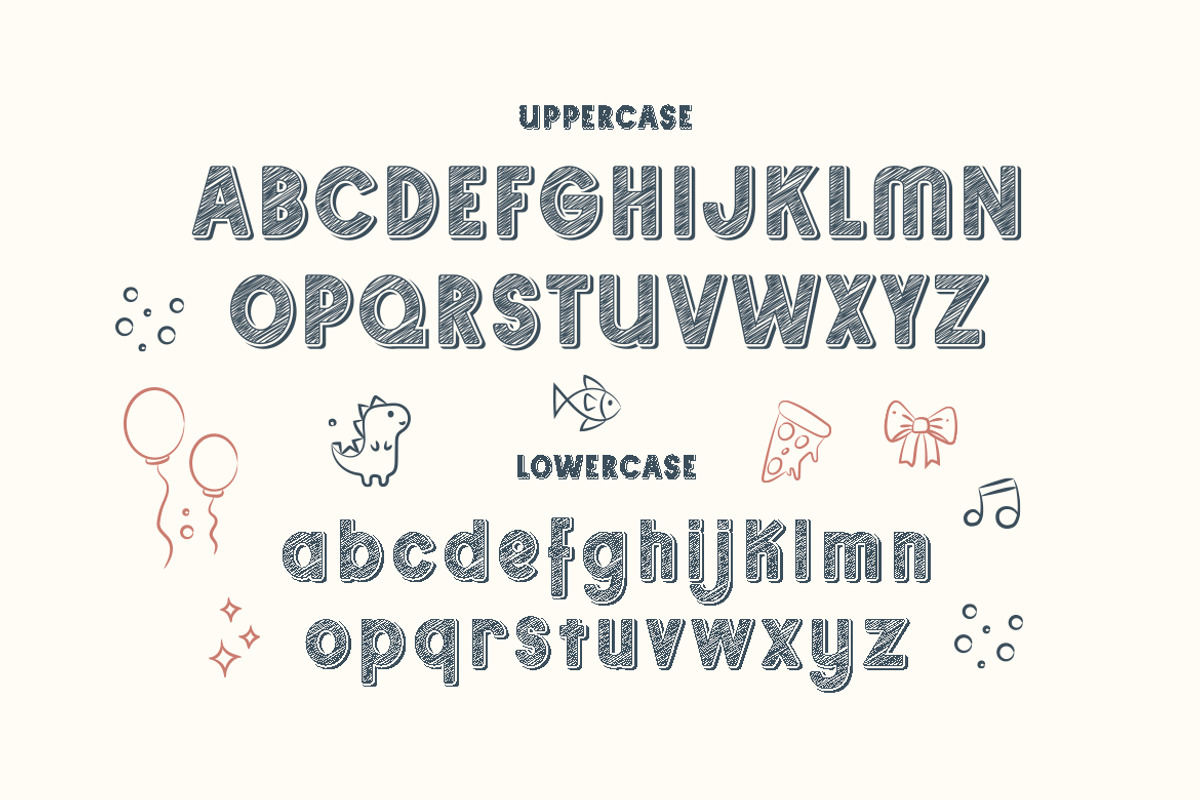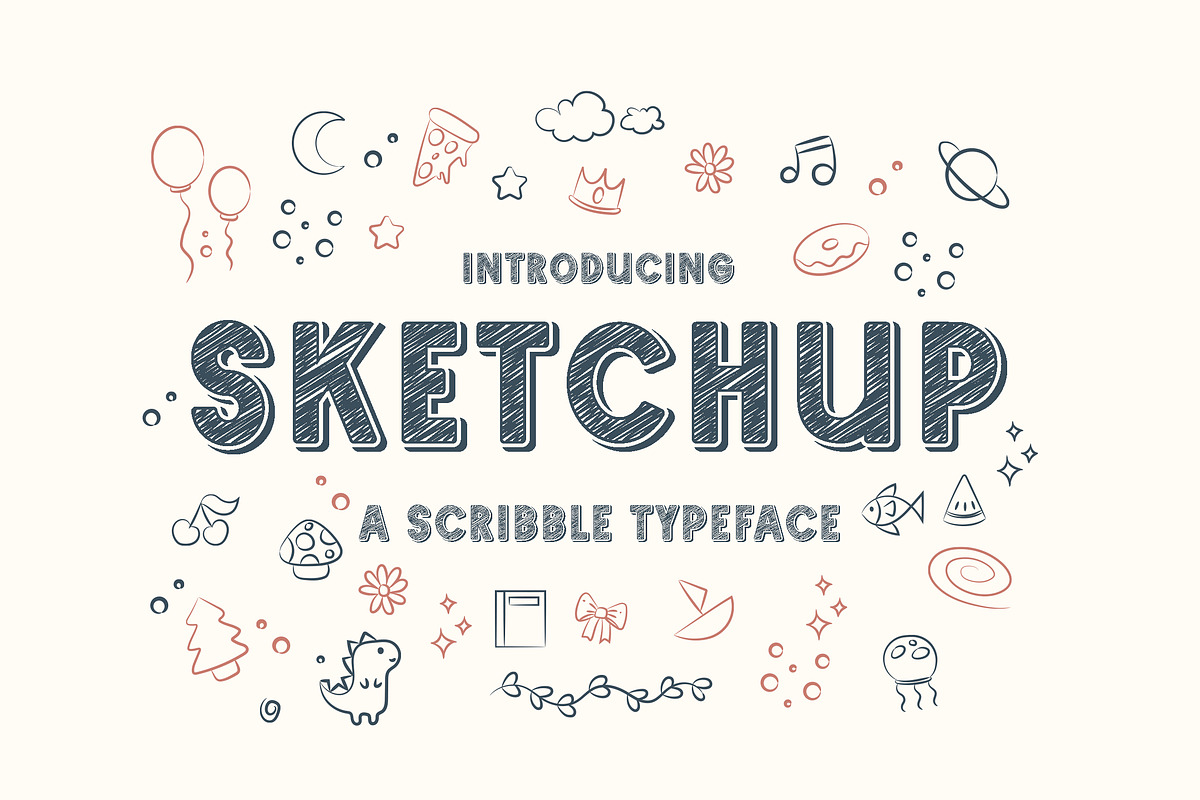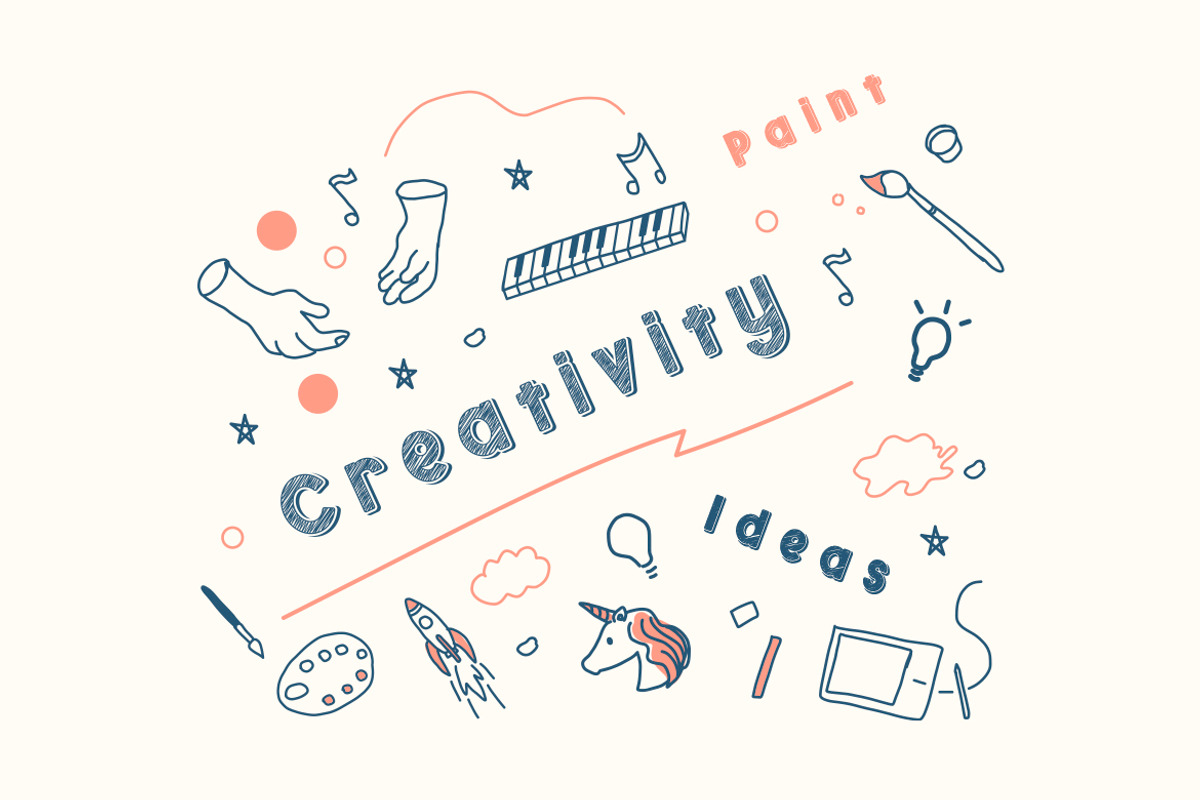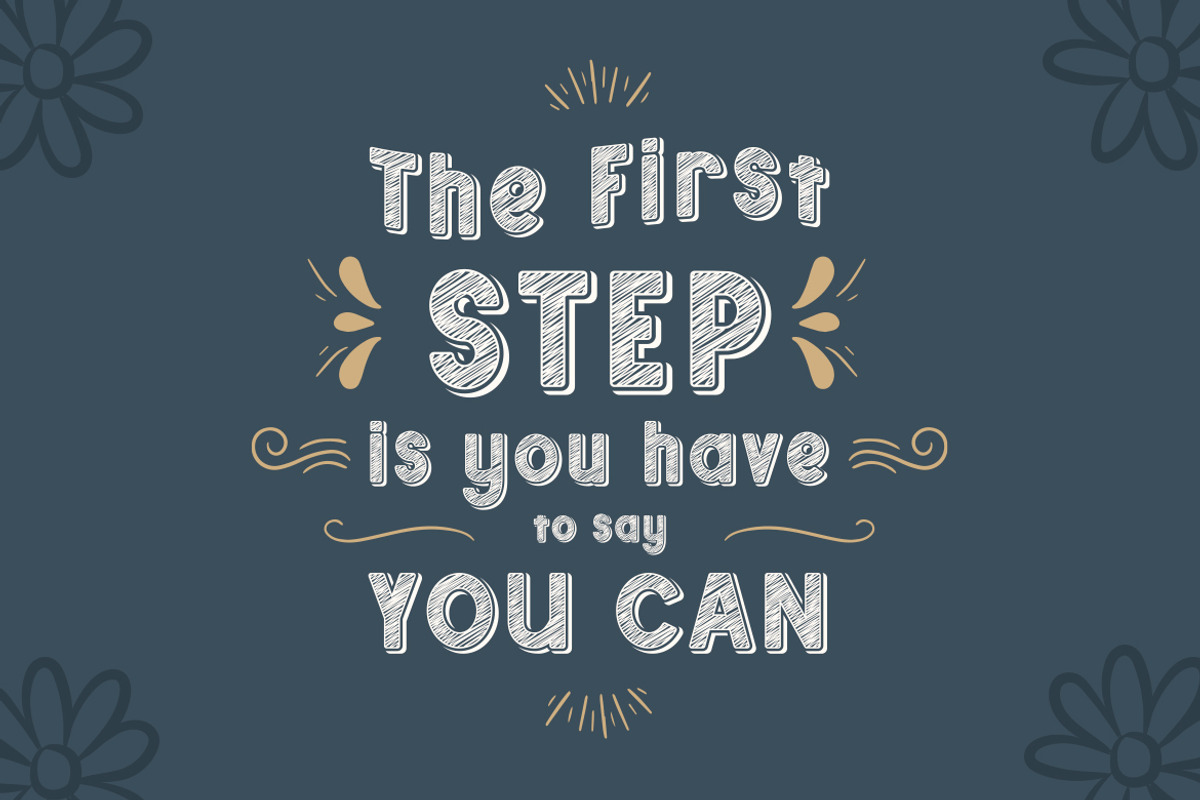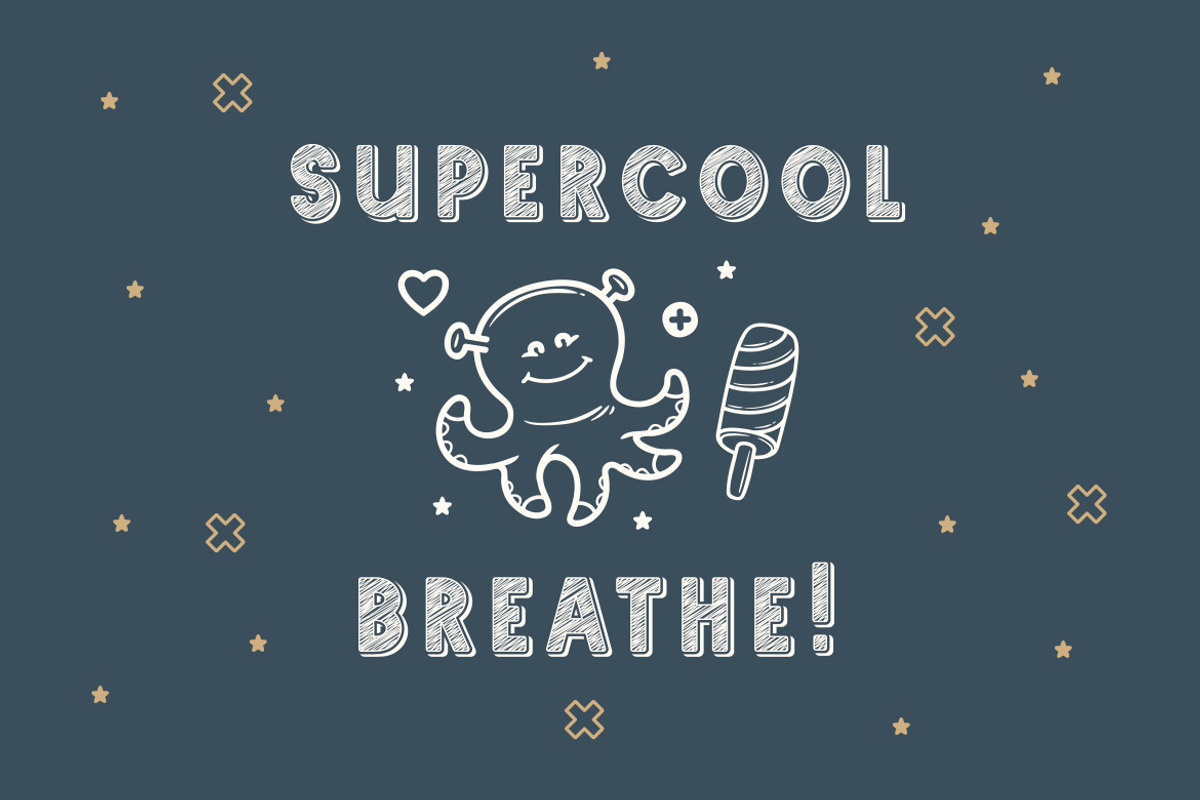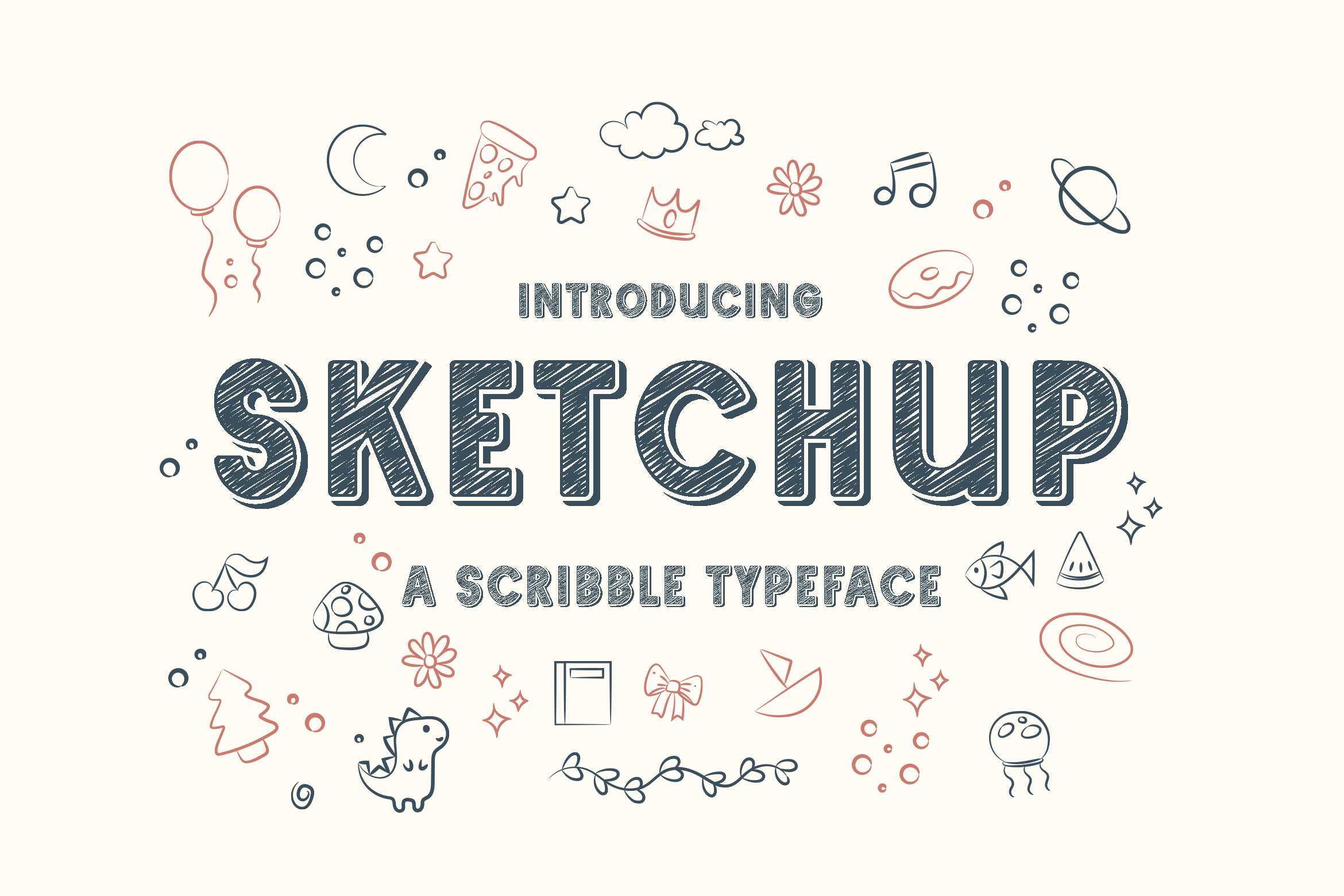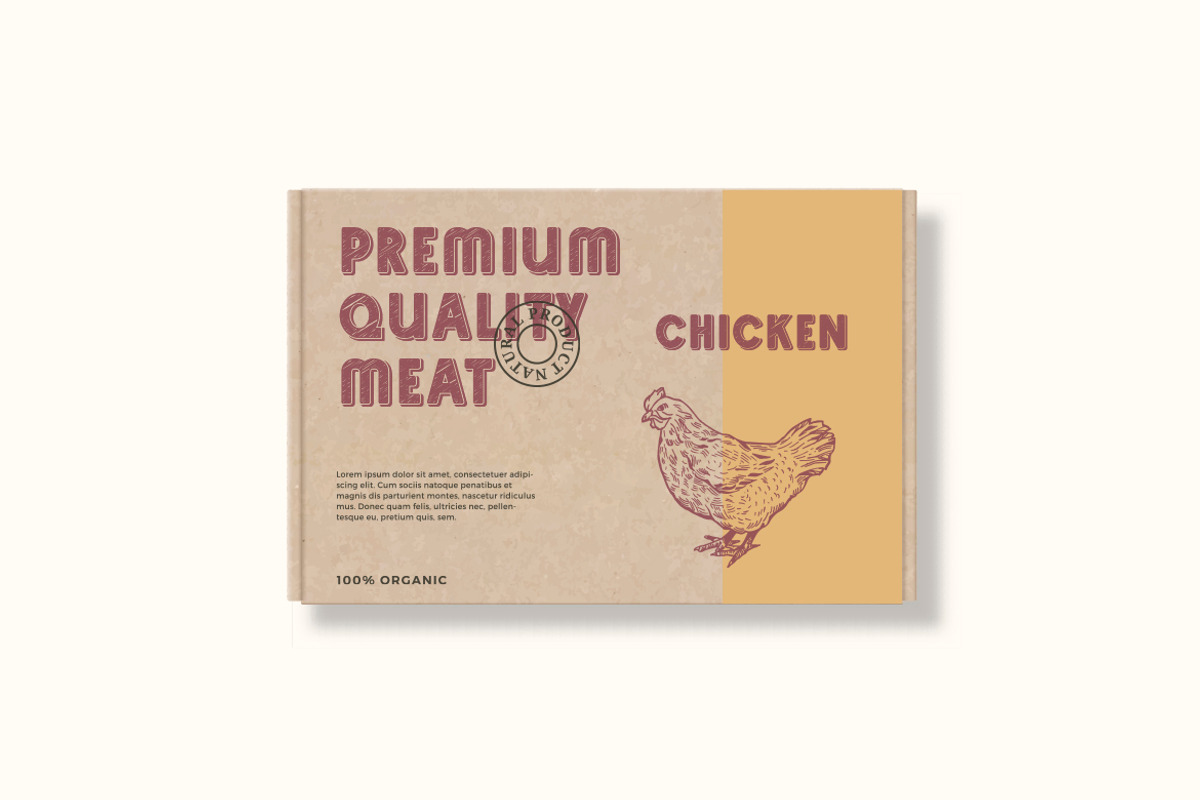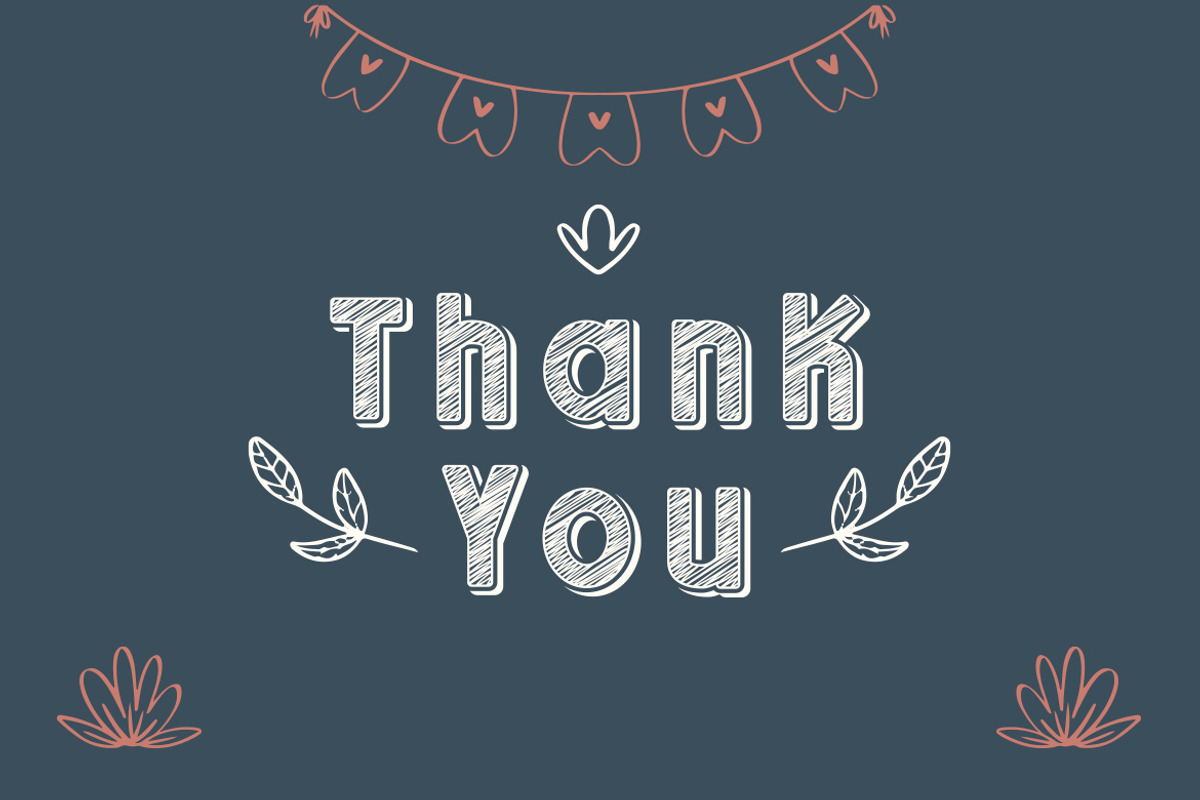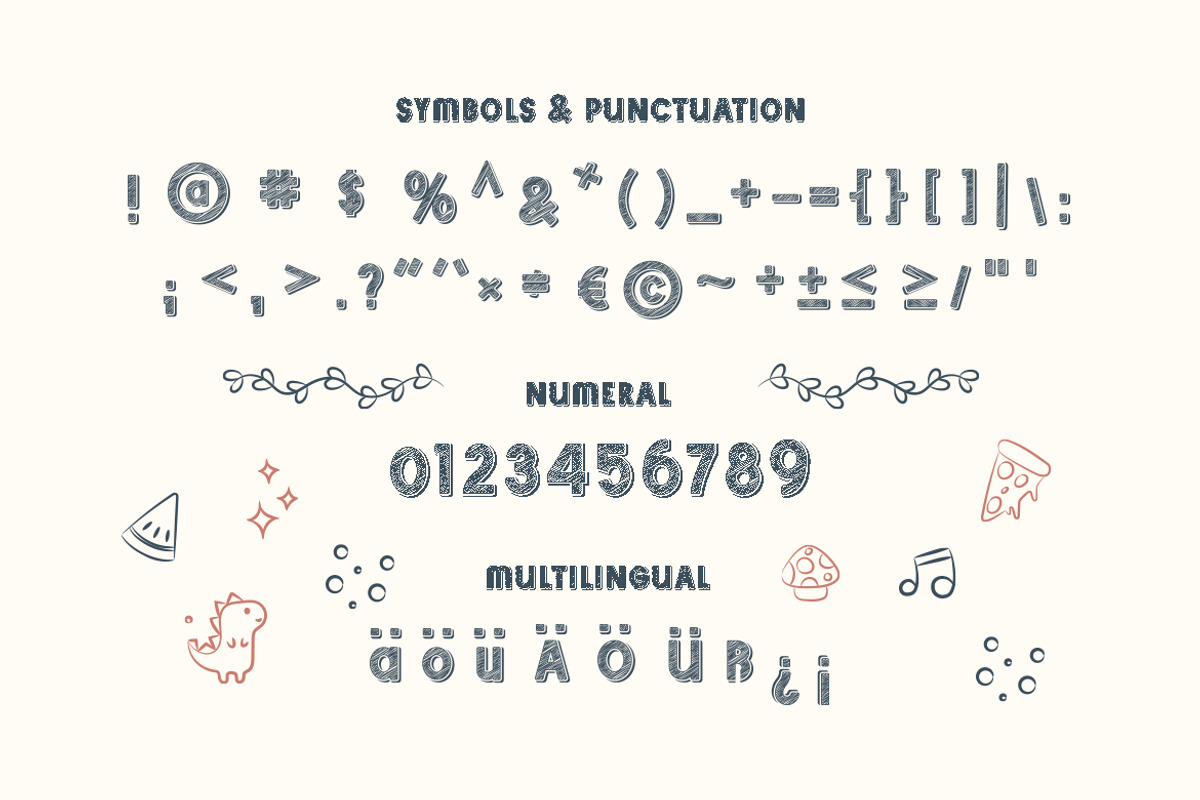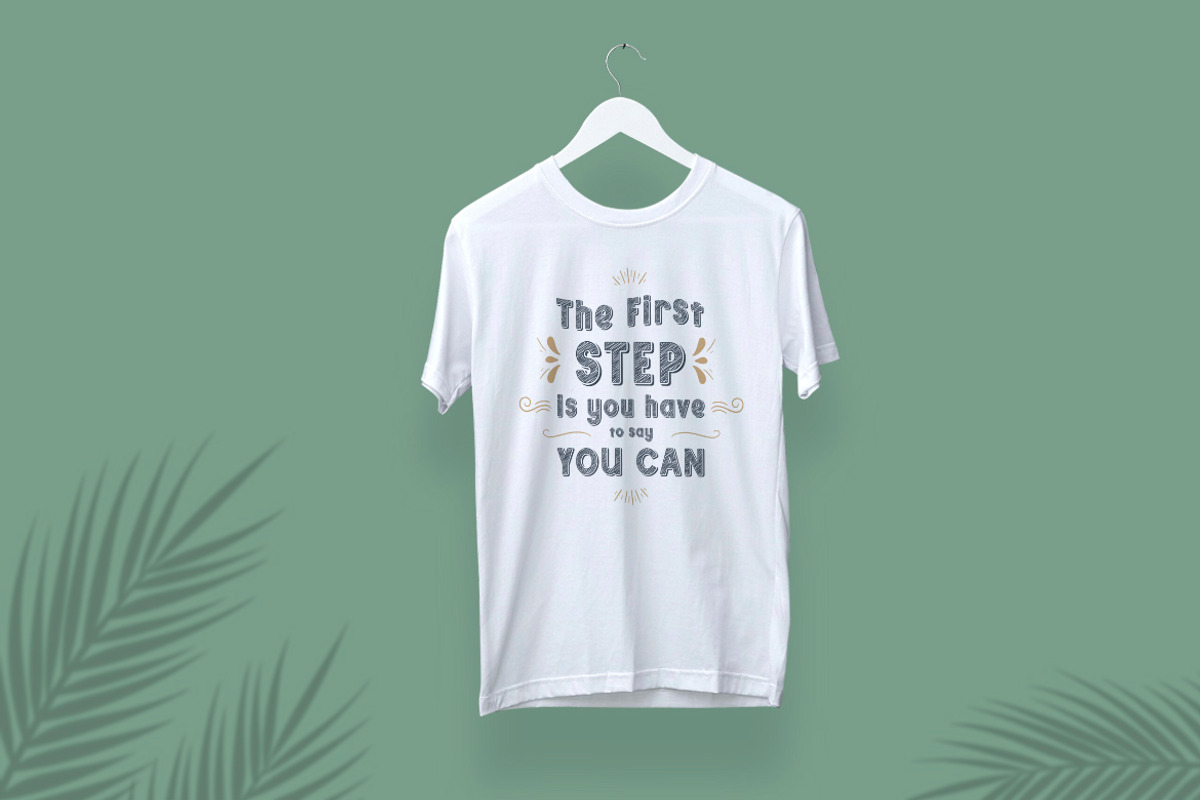
Sketchup – Adorable Scribble Font
Skecthup is a display font with an incredibly adorable charm. Get inspired by its whimsical feel, and turn any creative project into an eye catcher! Perfect for party invitations, printed quotes, standout packaging, or adorable t-shirts! You can even use it to create amazing headings, logos, menus, and social media graphics. Also it Suited for Kids Theme and many more!